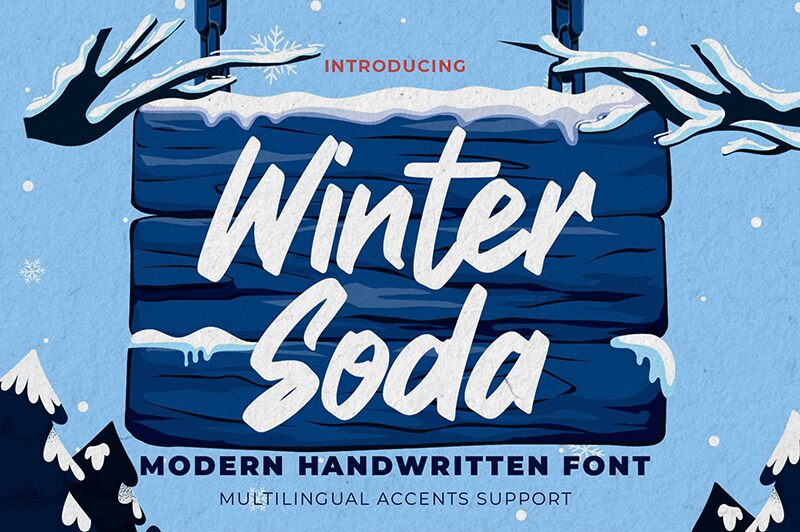
Winter Soda
Discover the refreshing charm of Winter Soda, a font that exudes the warmth of handwritten notes on a cool winter day. Created by the talented Gassstype, this semi-light typeface is more than just letters on a page; it's an embodiment of contemporary elegance and casual flair. Winter Soda has been meticulously designed to capture the spontaneity of quick, flowing strokes using Procreate before being refined into crisp vector format. Its authentic touch is preserved through each curve, making every character feel alive.
Winter Soda's unique character shines in its suitability for an array of creative projects. From logo designs that require an intimate touch to branding projects seeking modern sophistication, this font stands out with its natural look and engaging ligatures available through OpenType features. Whether it's complementing product packaging or enhancing your next quote-based design, Winter Soda promises to add a personal and stylish narrative to your work.